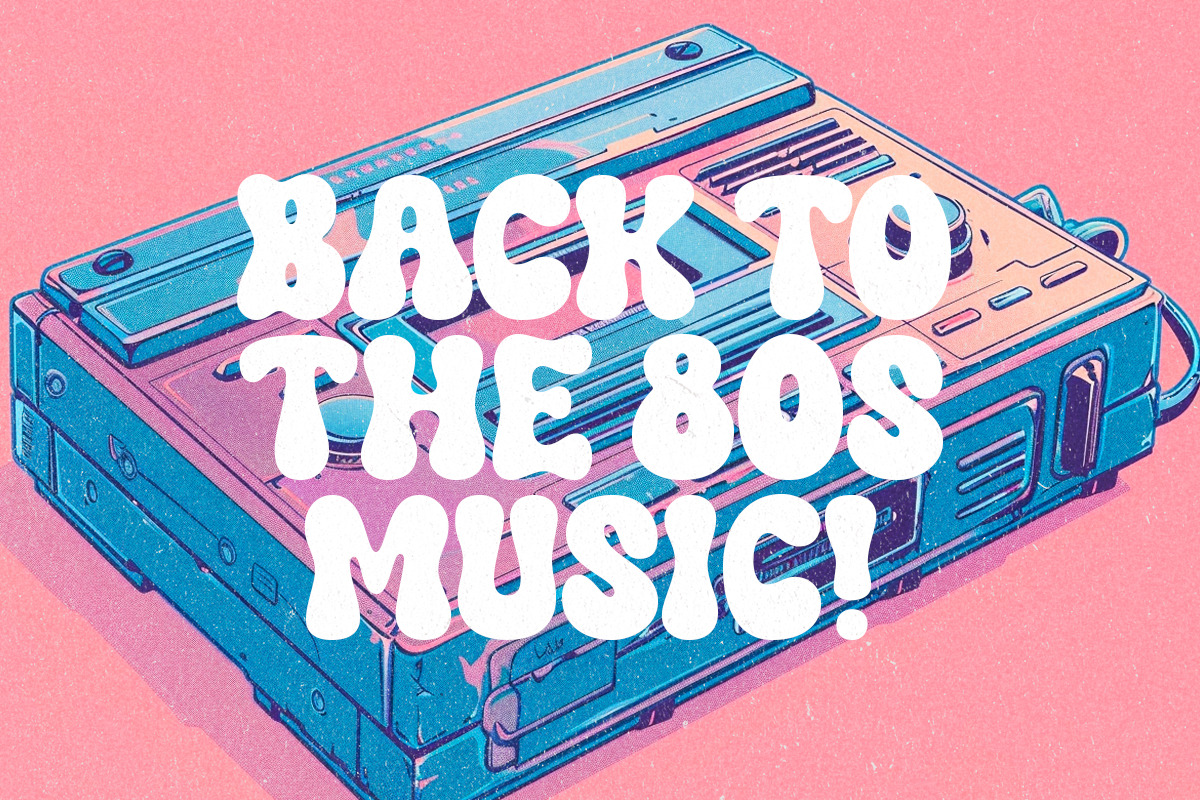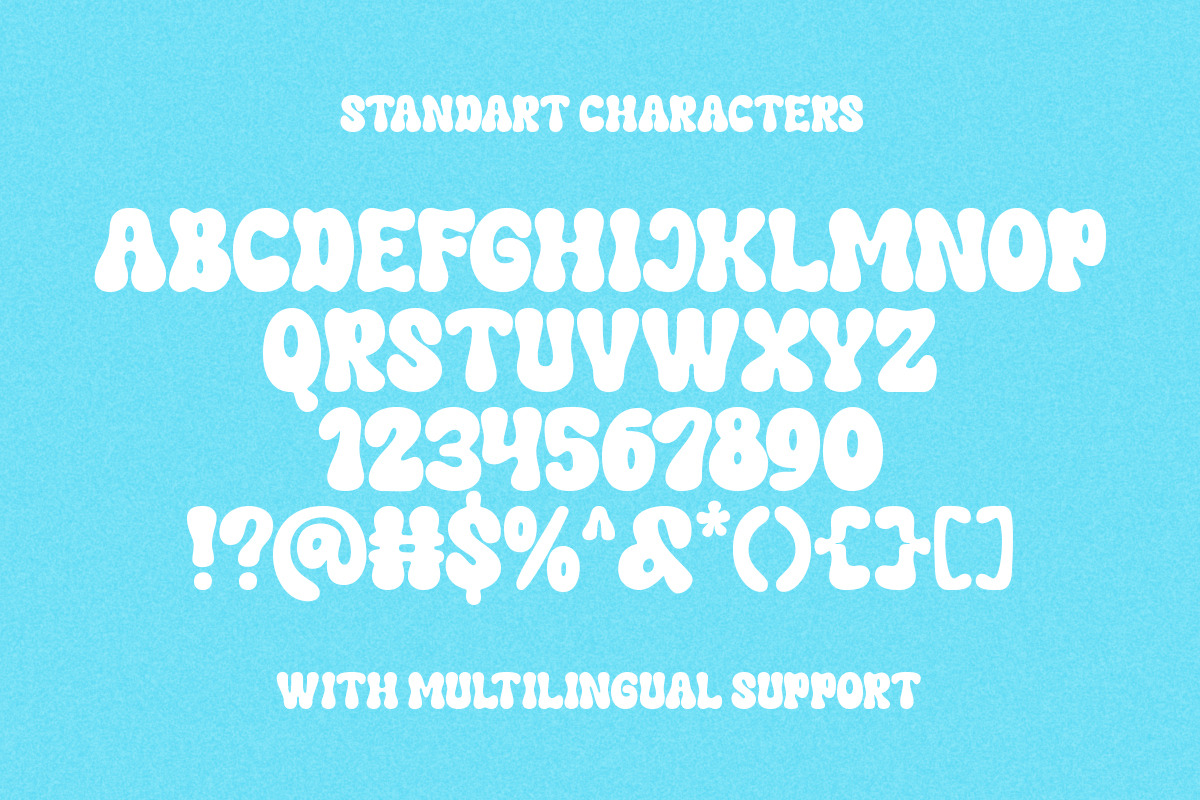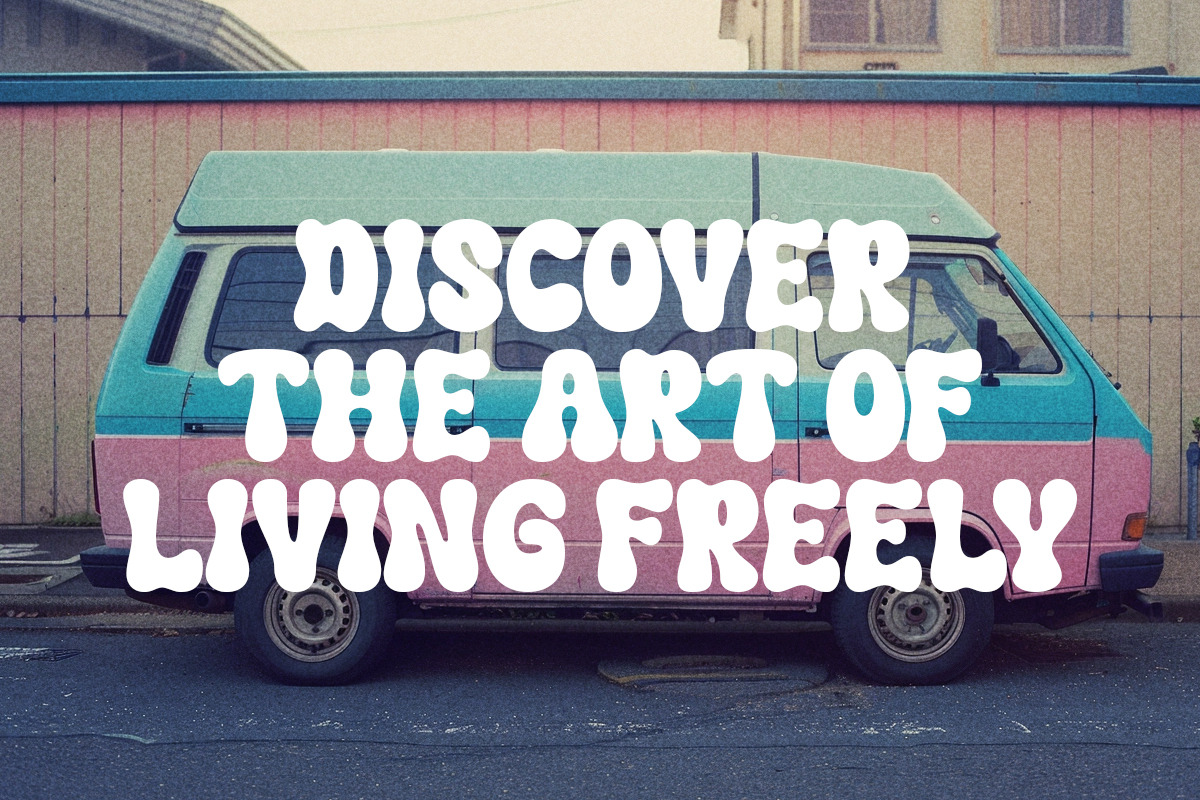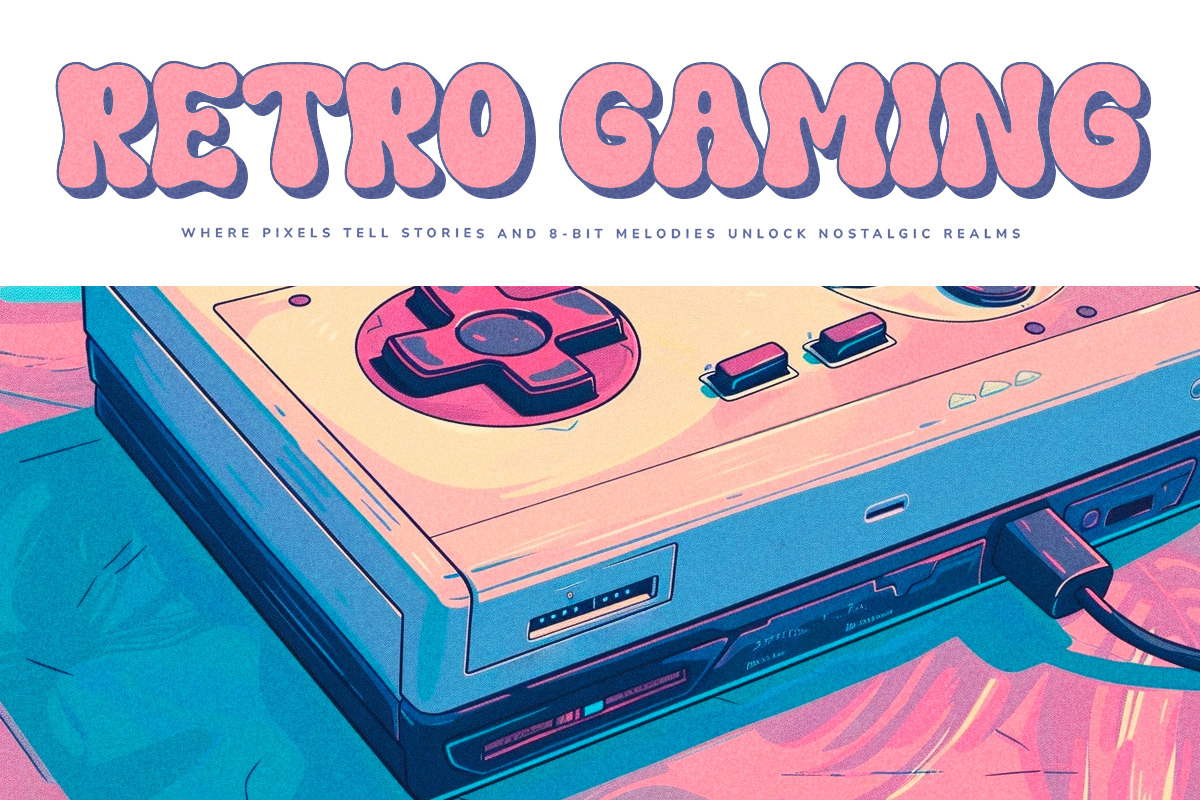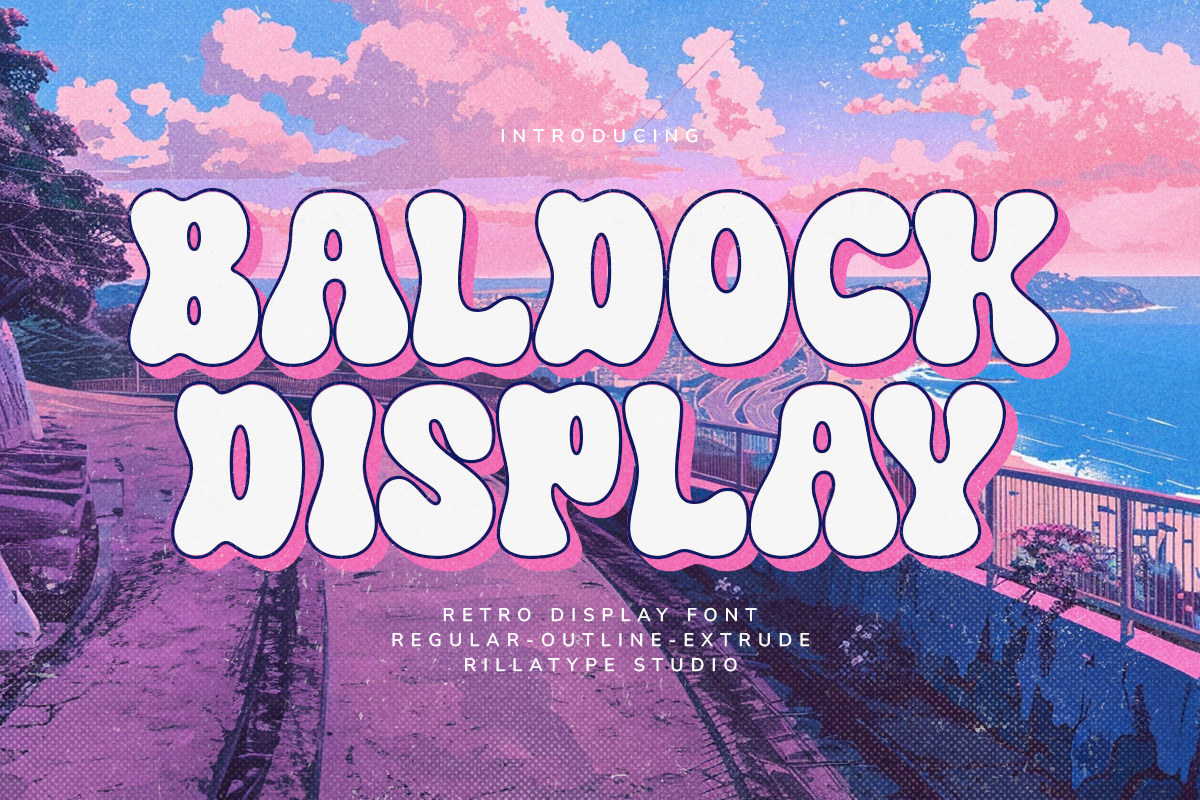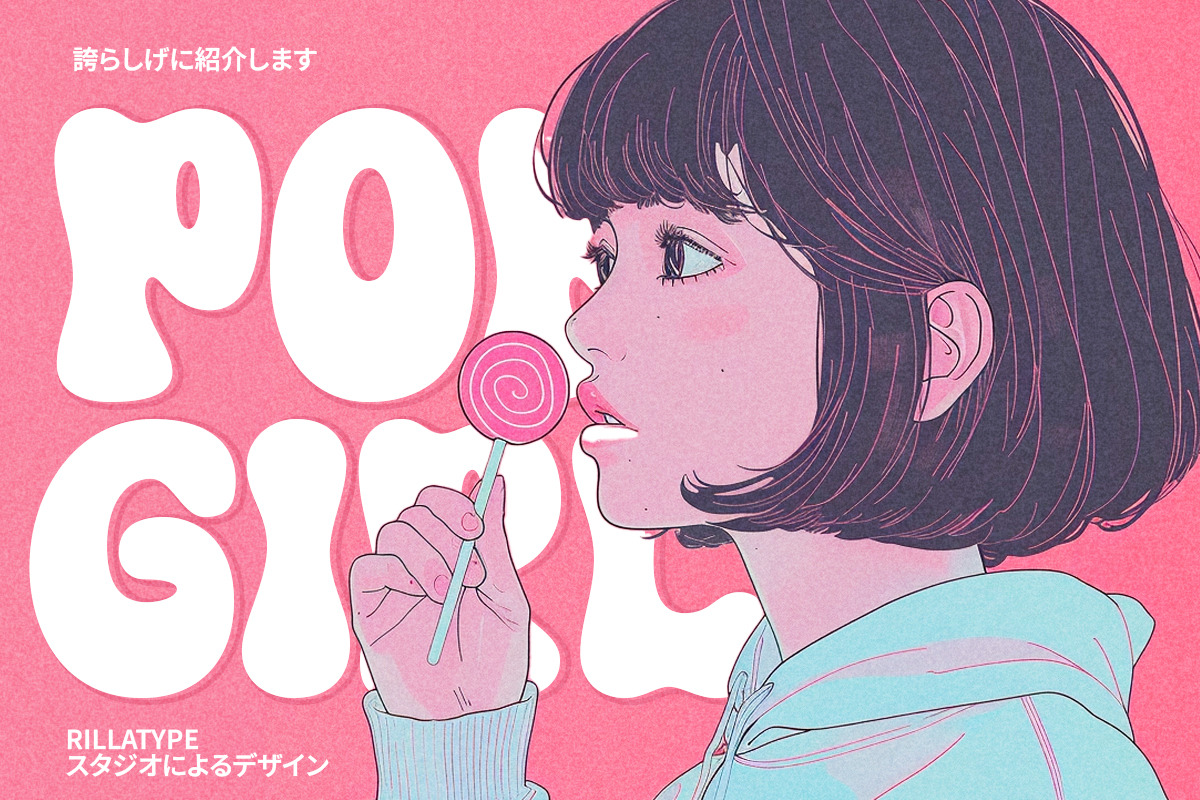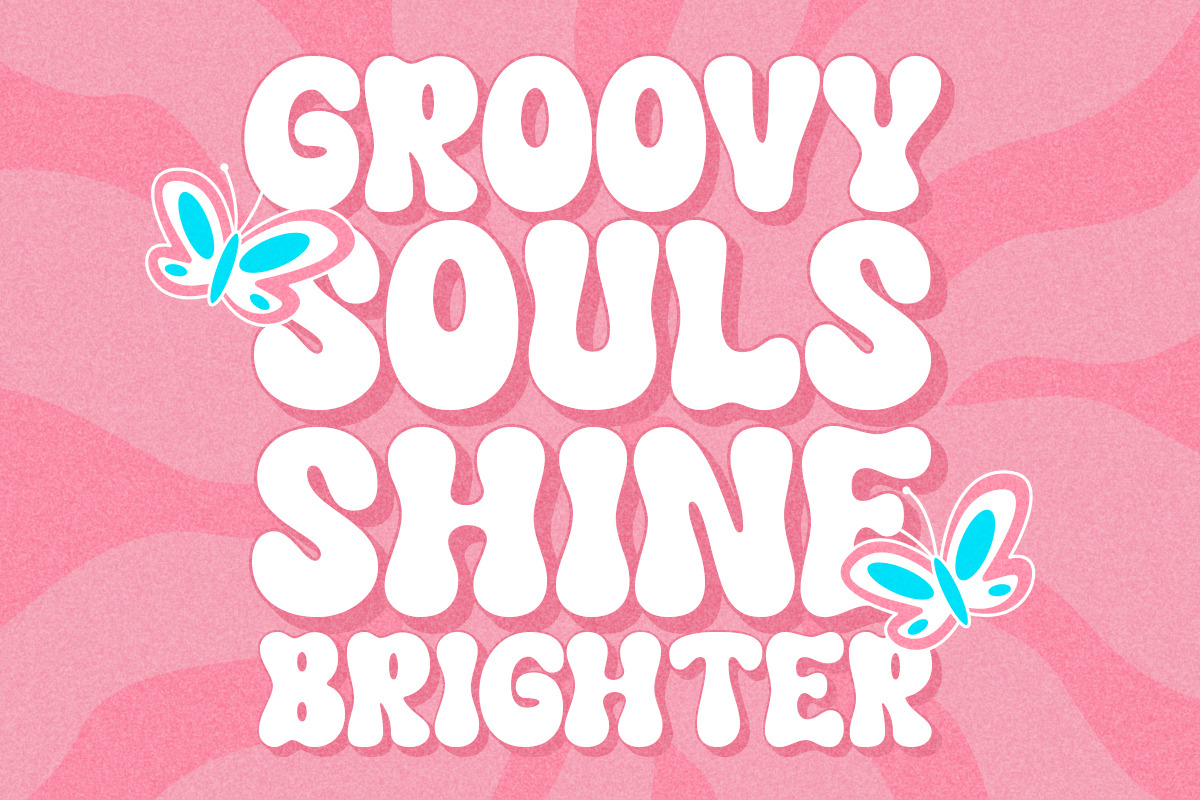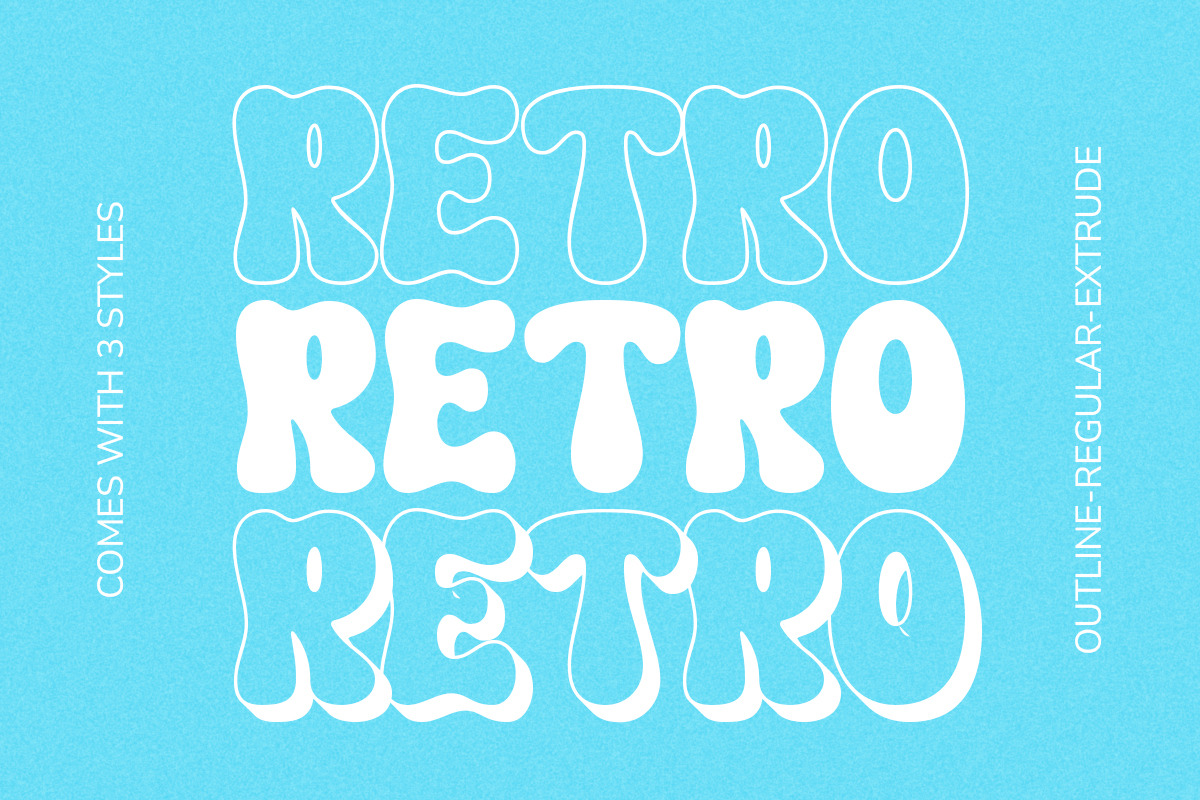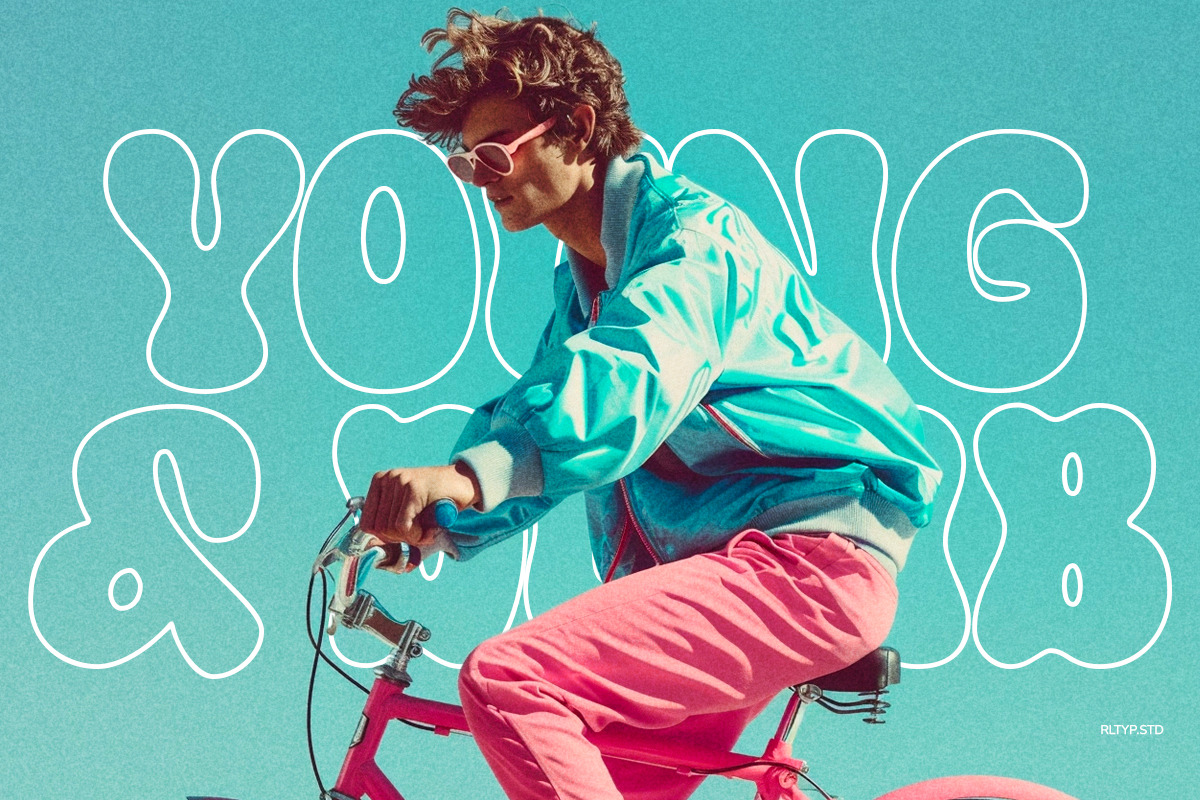
Baldock Retro Font
Baldock is more than just a font; it's a journey back to the vibrant era of the '70s. With its bold strokes and dynamic curves, this groovy display font brings the retro vibes to life in every design project. Whether you're creating posters, album covers, or branding materials, Baldock adds that nostalgic touch that makes your work stand out. Let your creativity flow and transport your audience to the golden age of disco with Baldock.